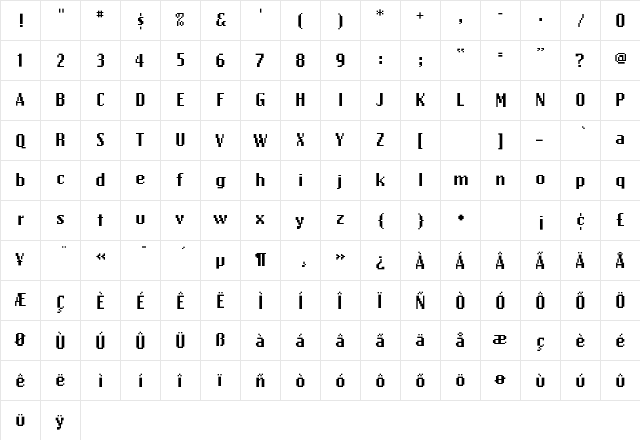
EmigreTen Medium
Design Context for EmigreTen Typeface
EmigreTen offers clean, dependable letterforms without strong stylistic allegiance, making it a practical choice for designers who need flexibility.